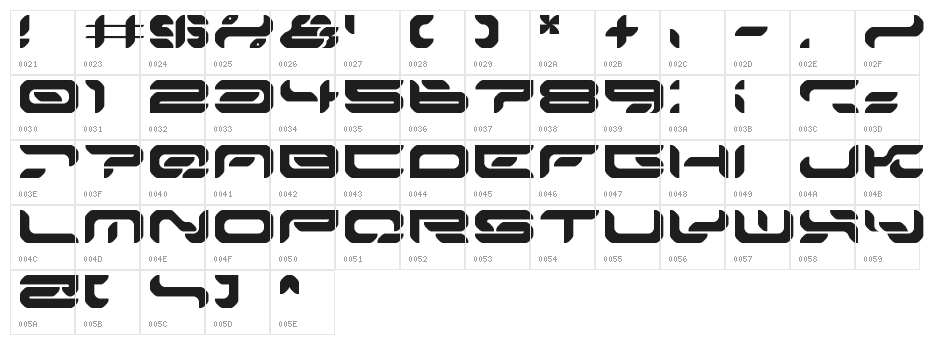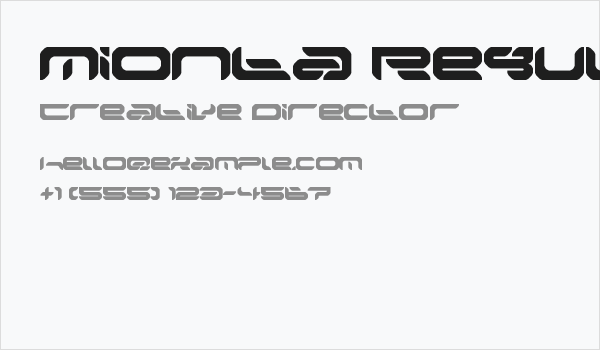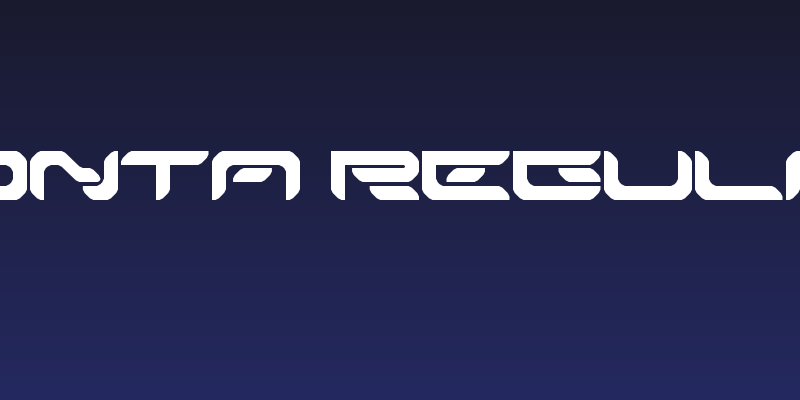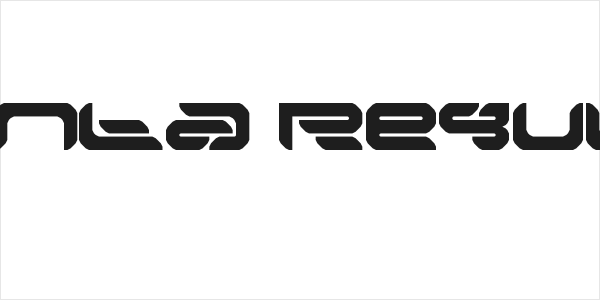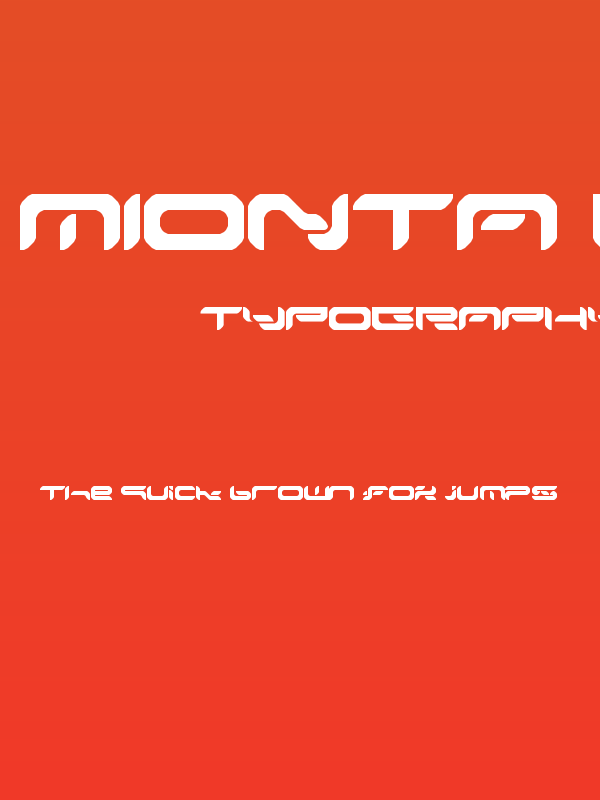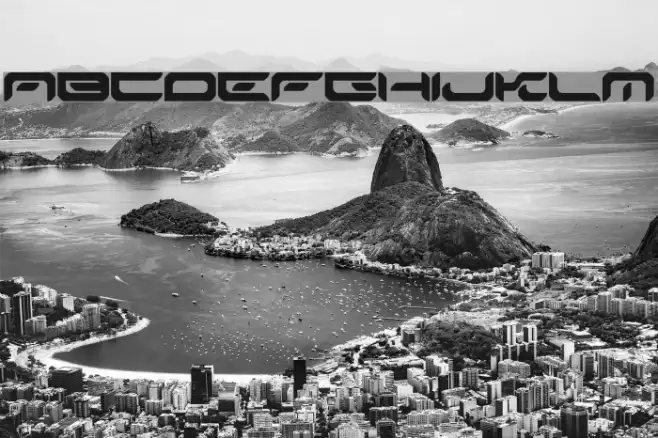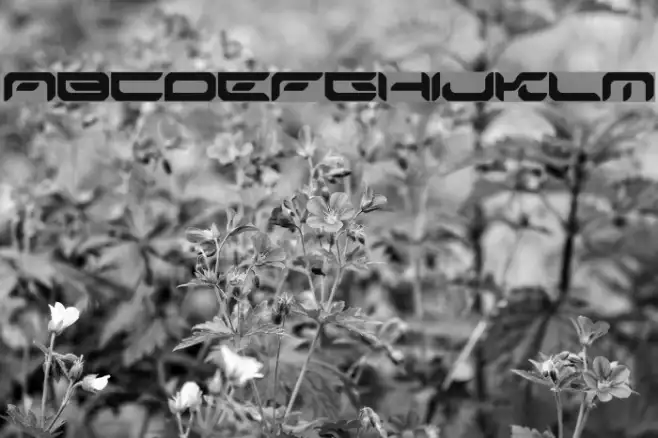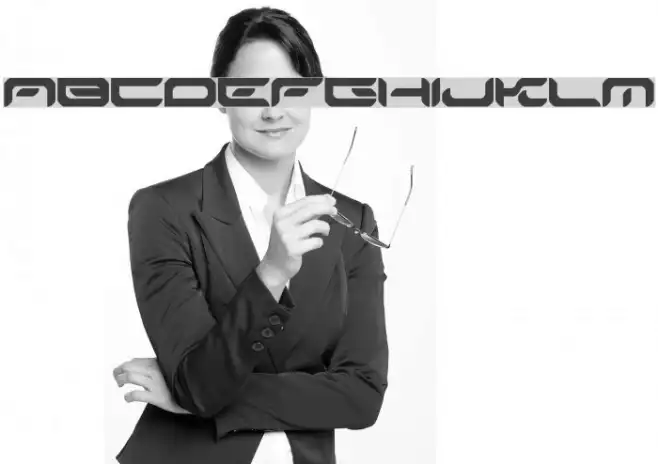
Mionta Regular Font
Mionta Regular Description
This font features a futuristic and geometric design with bold, angular shapes. Each character is constructed with a series of sharp edges and cut-out sections, creating a unique and modern appearance. The letters are uniformly styled, maintaining a consistent height and width, which contributes to a cohesive look. The font's distinct style makes it stand out, with a strong emphasis on horizontal and vertical lines. The numbers and special characters follow the same design principles, ensuring a harmonious overall aesthetic.
| Proposed Projects | Ideal for sci-fi themed projects, technology branding, video game titles, and futuristic posters. |